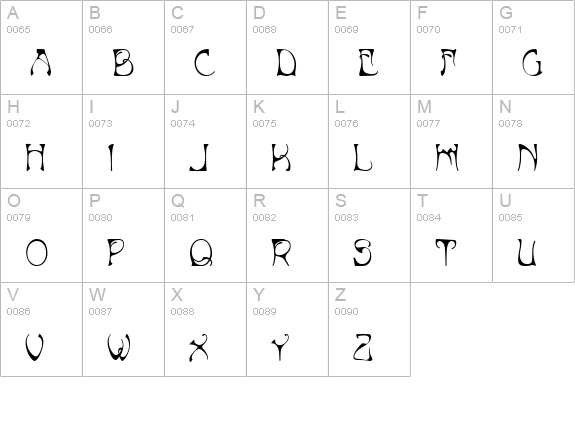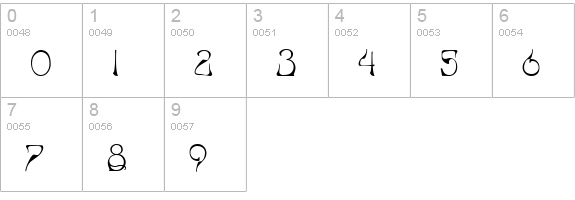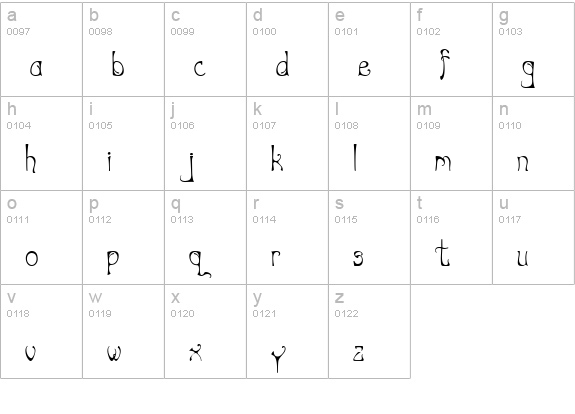
Art Nouveau-Bistro Font Details
The Art Nouveau-Bistro font is a stunning display typeface that effortlessly combines elegance and charm with its intricate design inspired by the Art Nouveau movement. With its organic forms and flowing lines, this font captures the essence of the early 20th century art style in a modern and sophisticated way. The Art Nouveau-Bistro font is perfect for creating eye-catching logos, branding materials, invitations, posters, and more. Its unique blend of vintage flair and contemporary appeal makes it a versatile choice for a wide range of design projects. Best of all, the Art Nouveau-Bistro font is available for free download at FontsMarket.com, allowing designers and creatives to access this beautiful typeface without any cost. Don't miss out on the opportunity to add this exquisite font to your collection and elevate your designs with its timeless beauty.